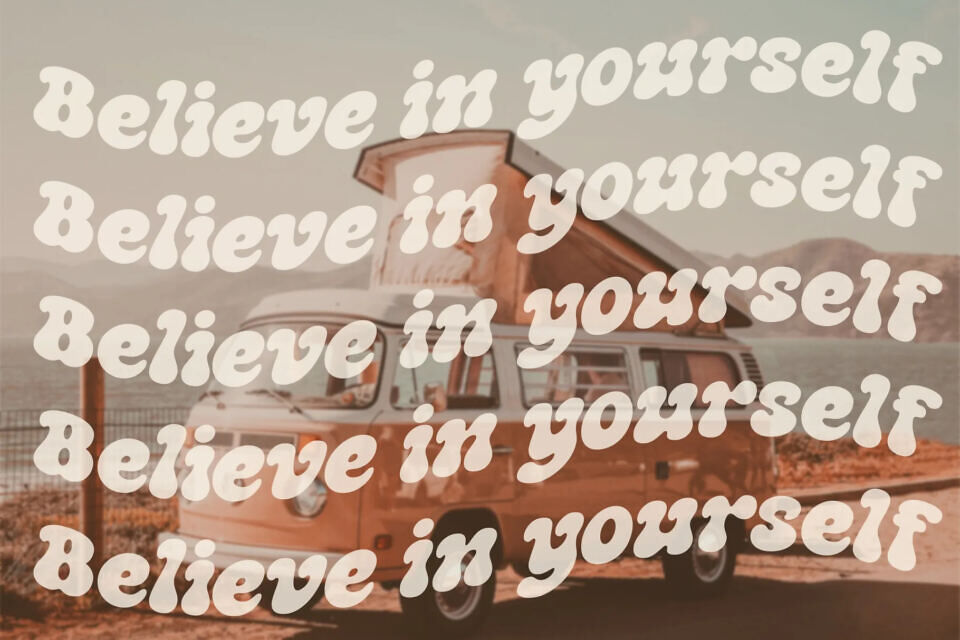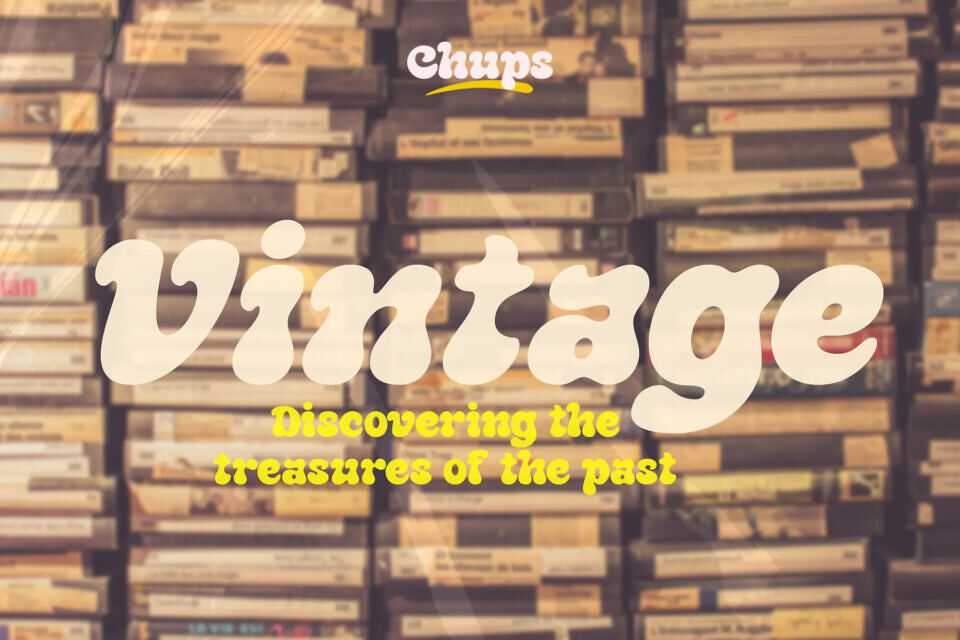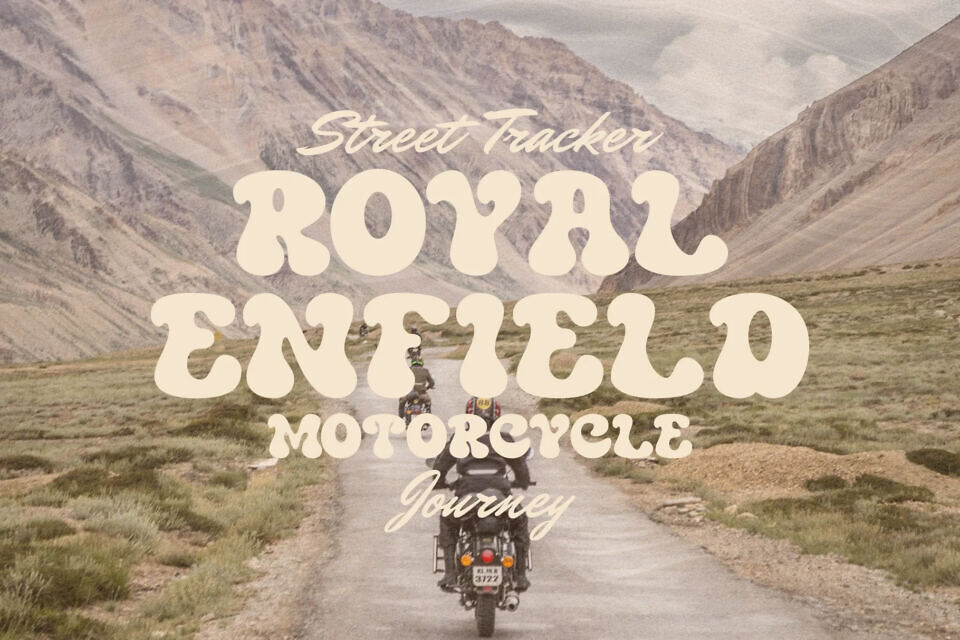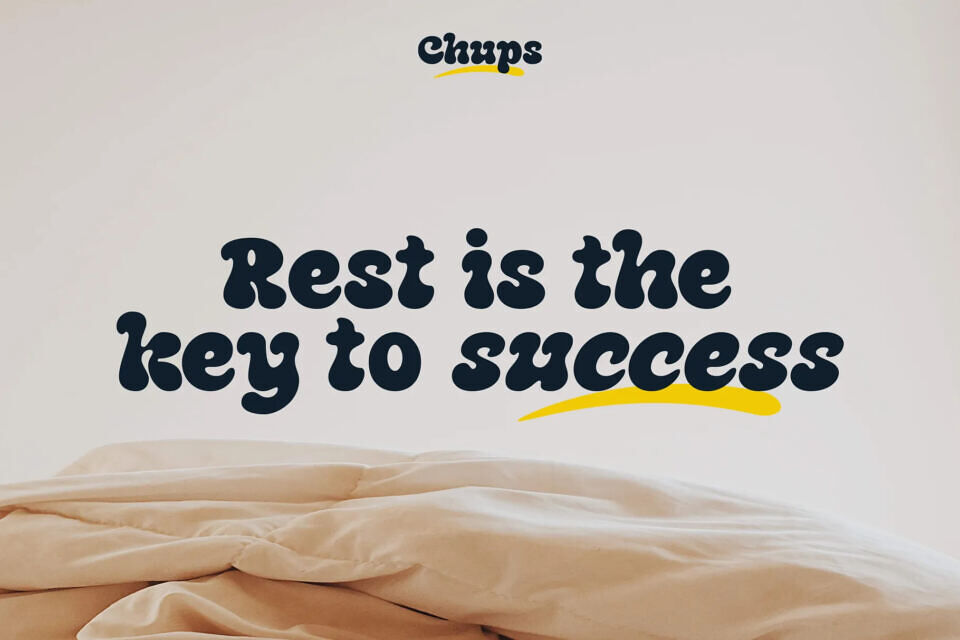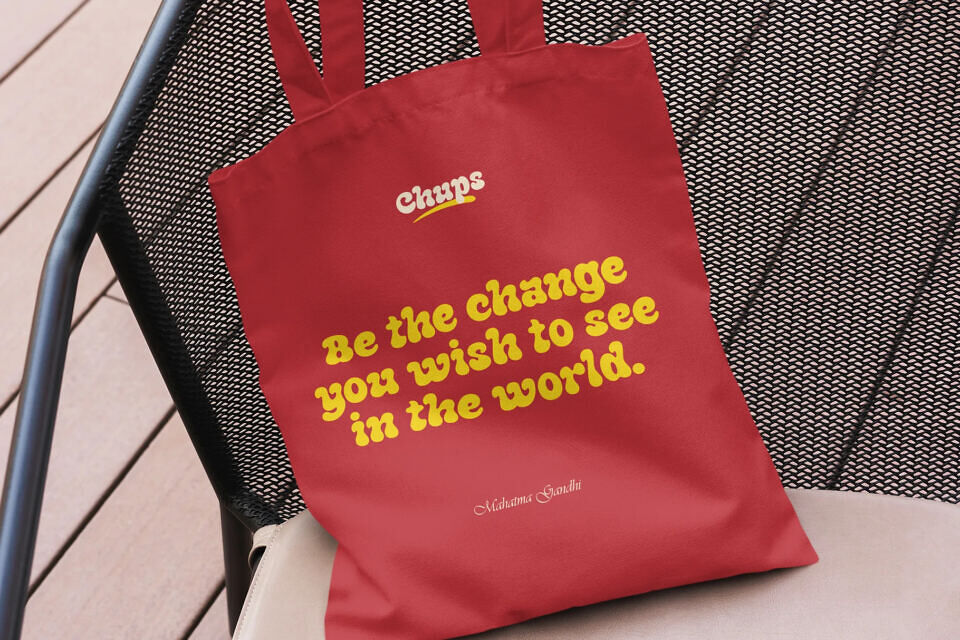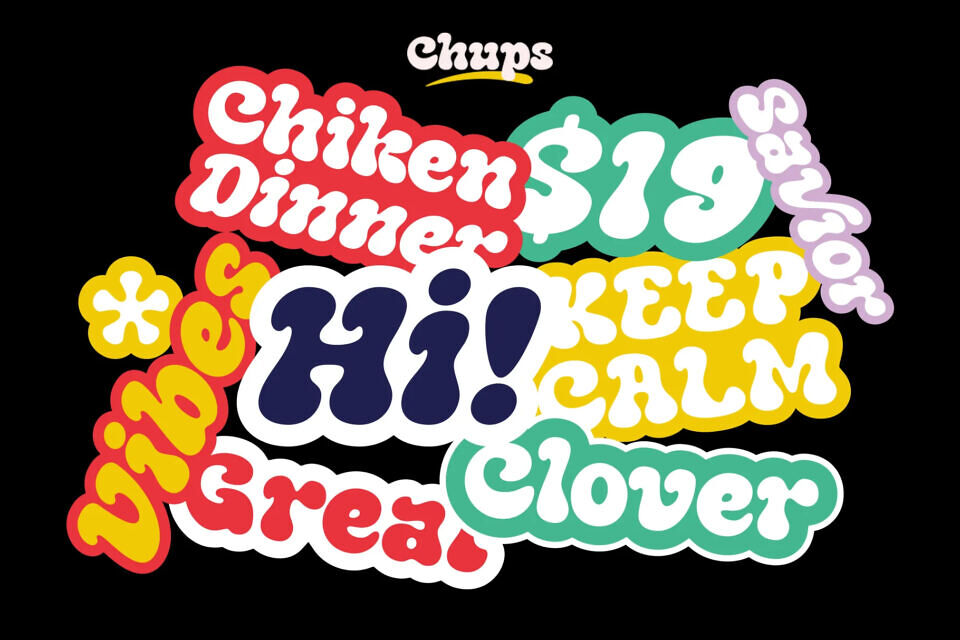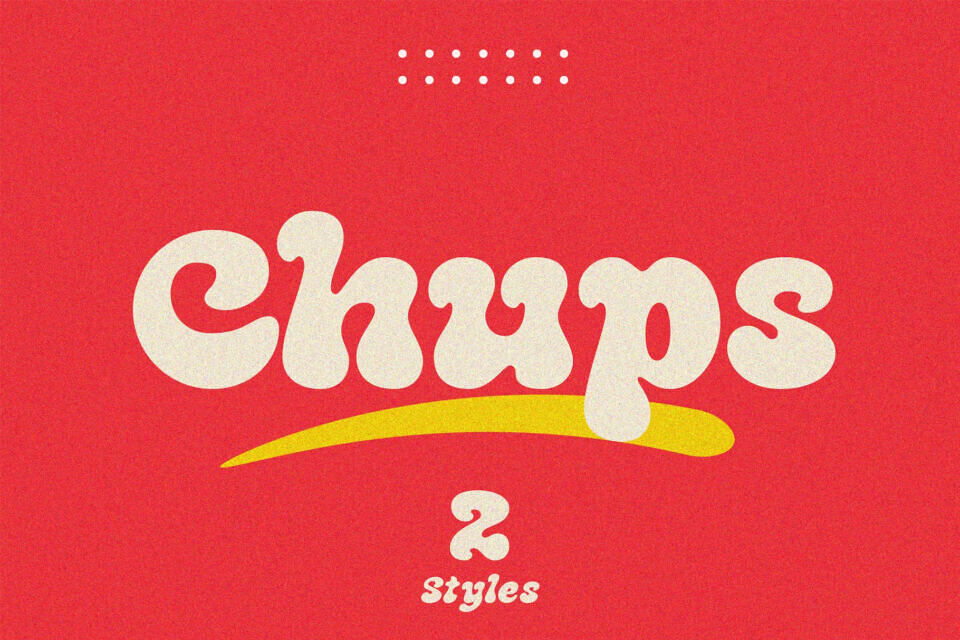
Chups Font
Chups is a playful retro display font inspired by the joy and color of classic candy packaging and vintage advertising. With its chunky letterforms and bubbly curves, Chups radiates happiness and nostalgia in every character. Designed for creators who want to bring back the fun and bold vibes of the 70s and 80s, this font adds instant personality to any project.
Crafted with smooth curves and consistent spacing, Chups comes in two styles that provide flexibility for various creative needs. Its thick, rounded forms and high readability make it ideal for logos, titles, and packaging that aim to stand out.
Perfect for branding, posters, snack packaging, children’s designs, social media, and playful typography, Chups brings an energetic retro spirit wherever it’s used. Whether you’re designing a cheerful logo or vintage-inspired artwork, this font is ready to sweeten your visuals.